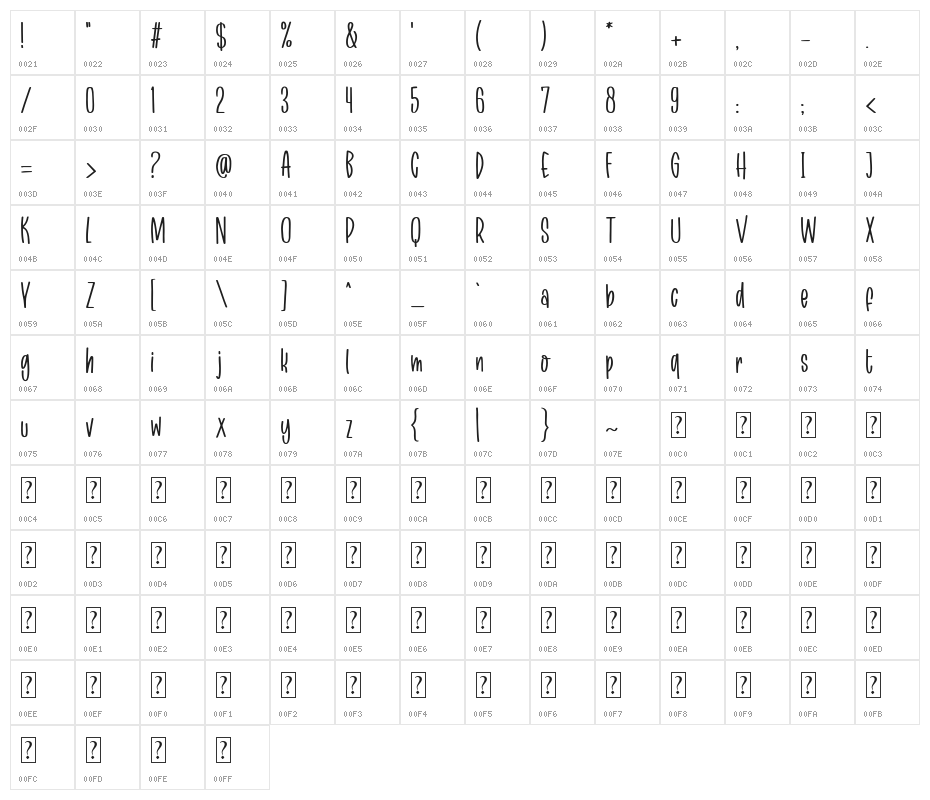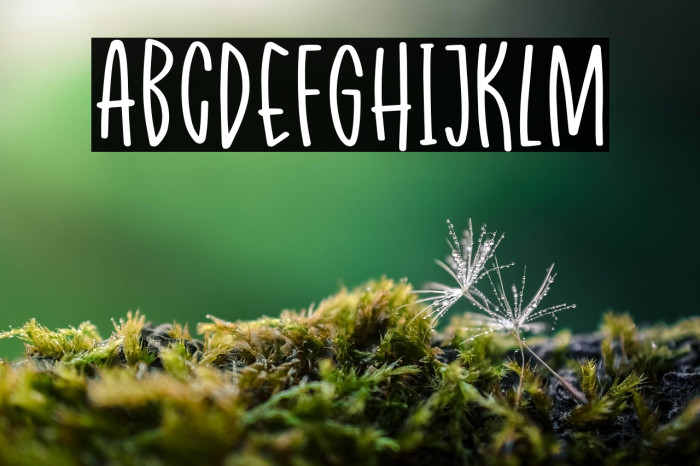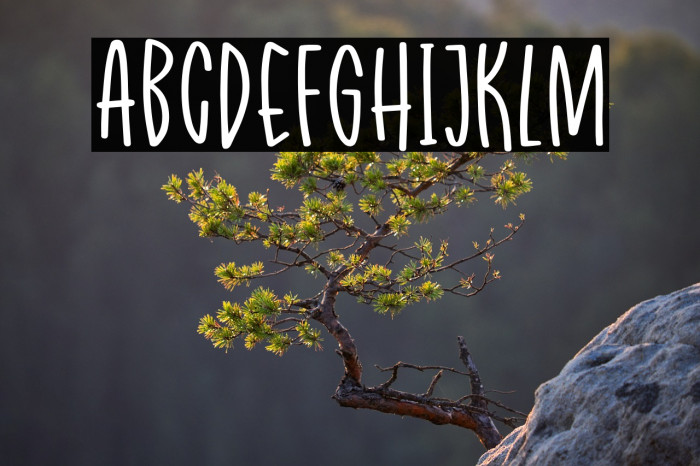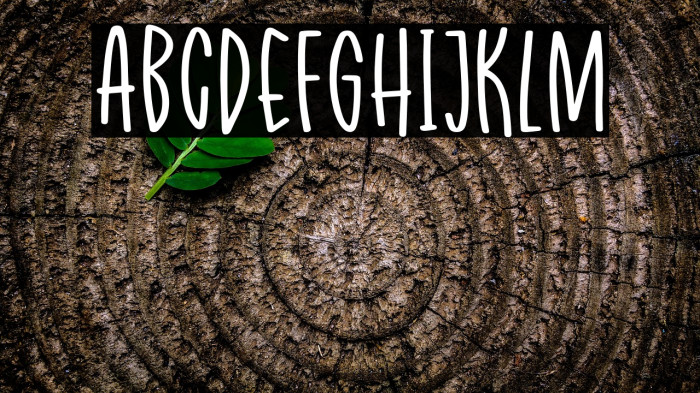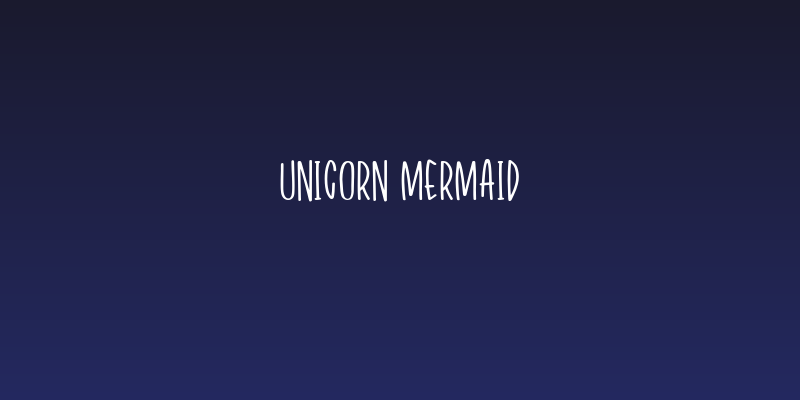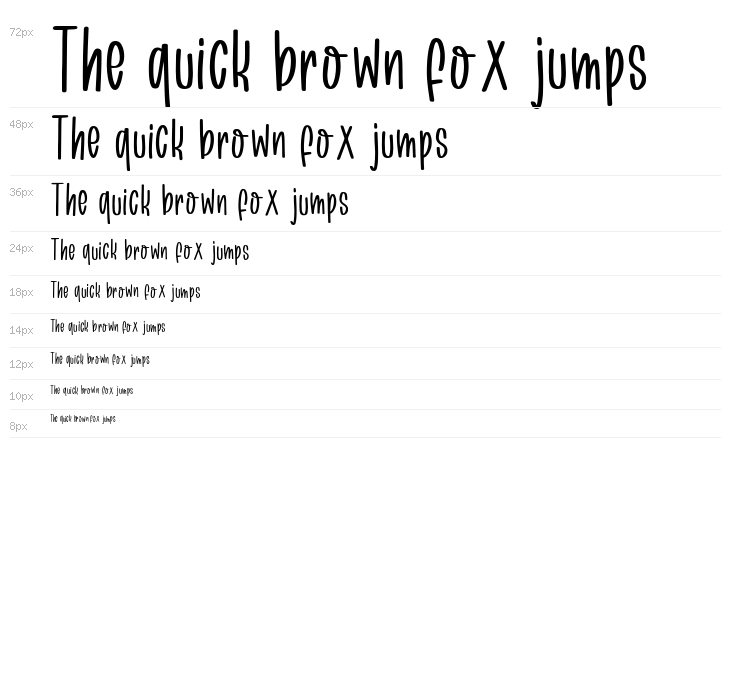
Unicorn Mermaid Font
Unicorn Mermaid Description
This playful and whimsical font features a handwritten style with a casual and friendly appearance. The letters are slightly elongated with a consistent stroke width, giving it a smooth and flowing look. The uppercase and lowercase characters maintain a uniform height, enhancing readability while retaining a unique charm. The numbers and special characters are designed to match the overall style, making it versatile for various uses. Its informal and approachable design is perfect for projects that require a touch of personality and creativity.
| Use Case | Logos, Headlines, Informal Text |
| Proposed Projects | Ideal for greeting cards, children's books, playful branding, and social media graphics. |